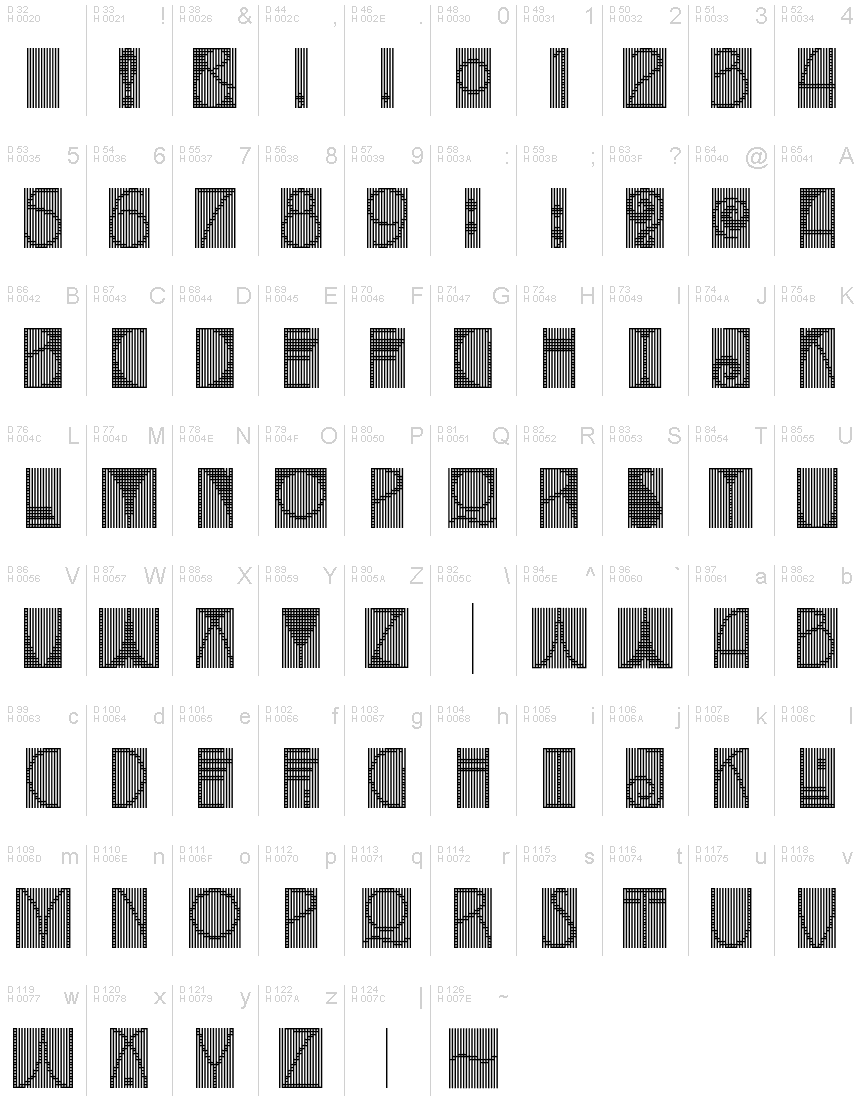
tm RenMac Regular
Designer description: Inspired by the work of Charles Rennie Mackintosh, specifically the Willow chair. I'm not sure how "twenties" this font is, especially since the Willow chair was designed in 1902, but it seems to kinda fit.